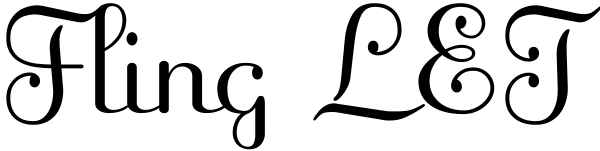
Fling
This fanciful typeface was designed by resident Letraset designer Michael Gills and is based on the famous French Ronde script. Created entirely on screen, Fling has a precise, clinical appearance. The capitals are for initialling purposes only and...